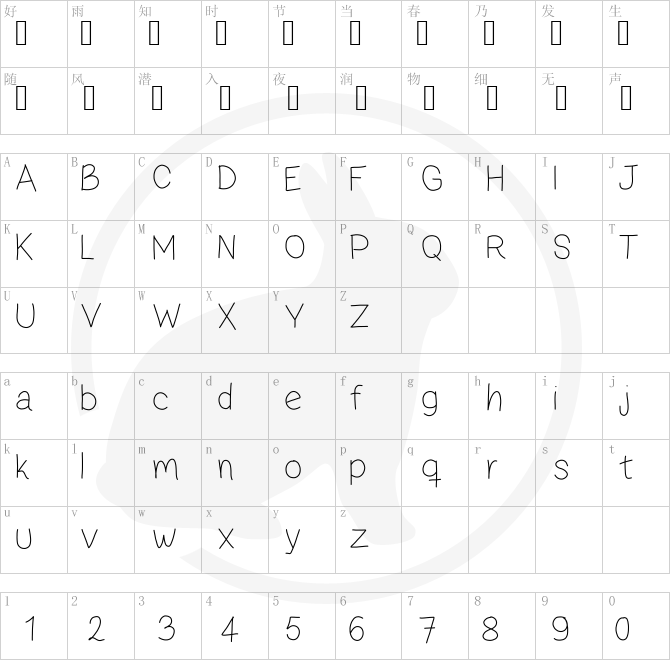
- Font Name:zama Thin
- Subfamily:Thin
- Full Name:zama Thin
zama-Thin.ttf is a very beautiful artistic font, zama-Thin.ttf is widely used in the design and printing of various books and pictures,zama-Thin.ttf has a strong visual impact,zama-Thin.ttf is a commonly used font in newspapers, magazines and books, and is used in posters, e-commerce Poster design, store design, logo design, font design and other fields.zama-Thin.